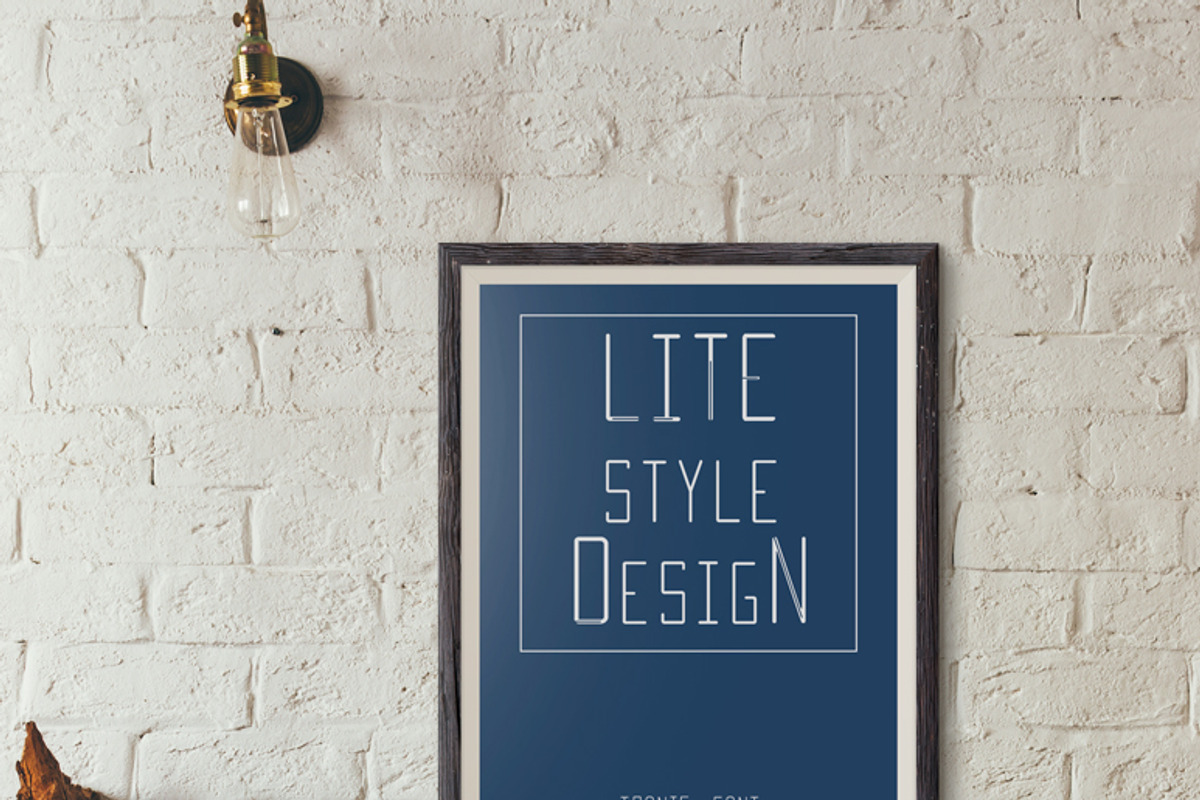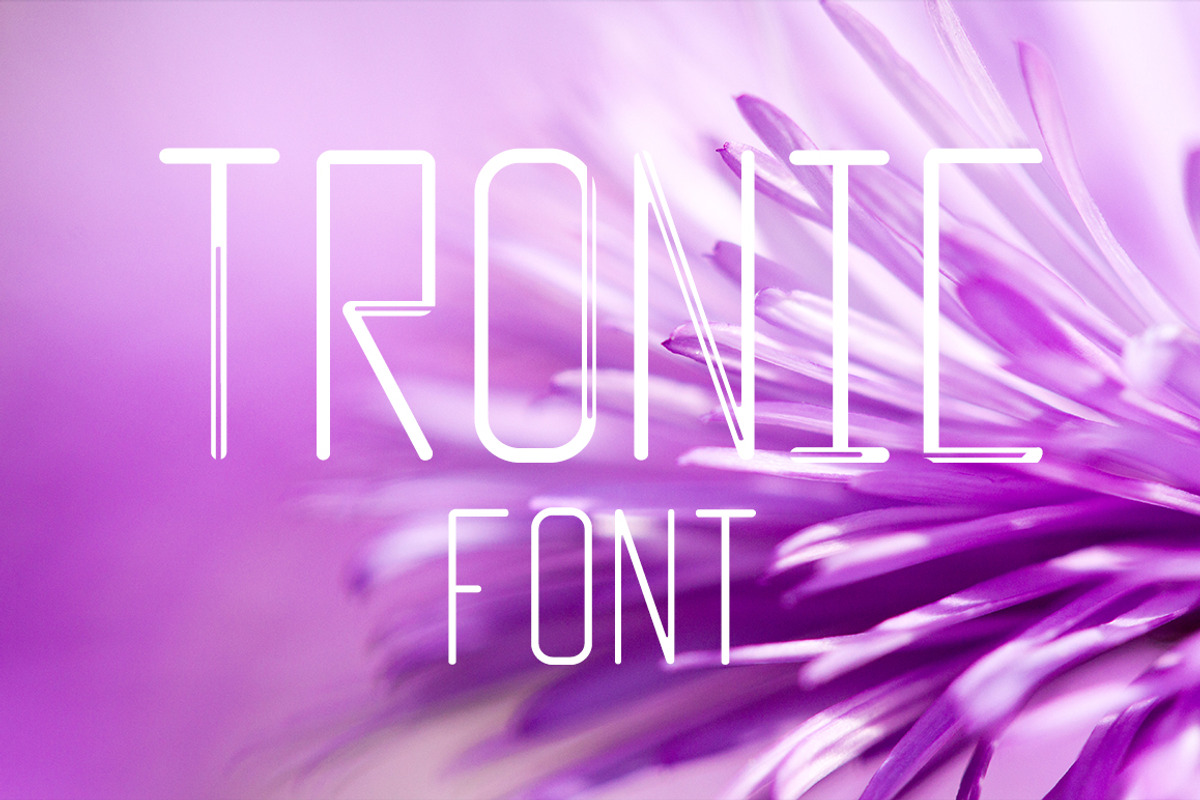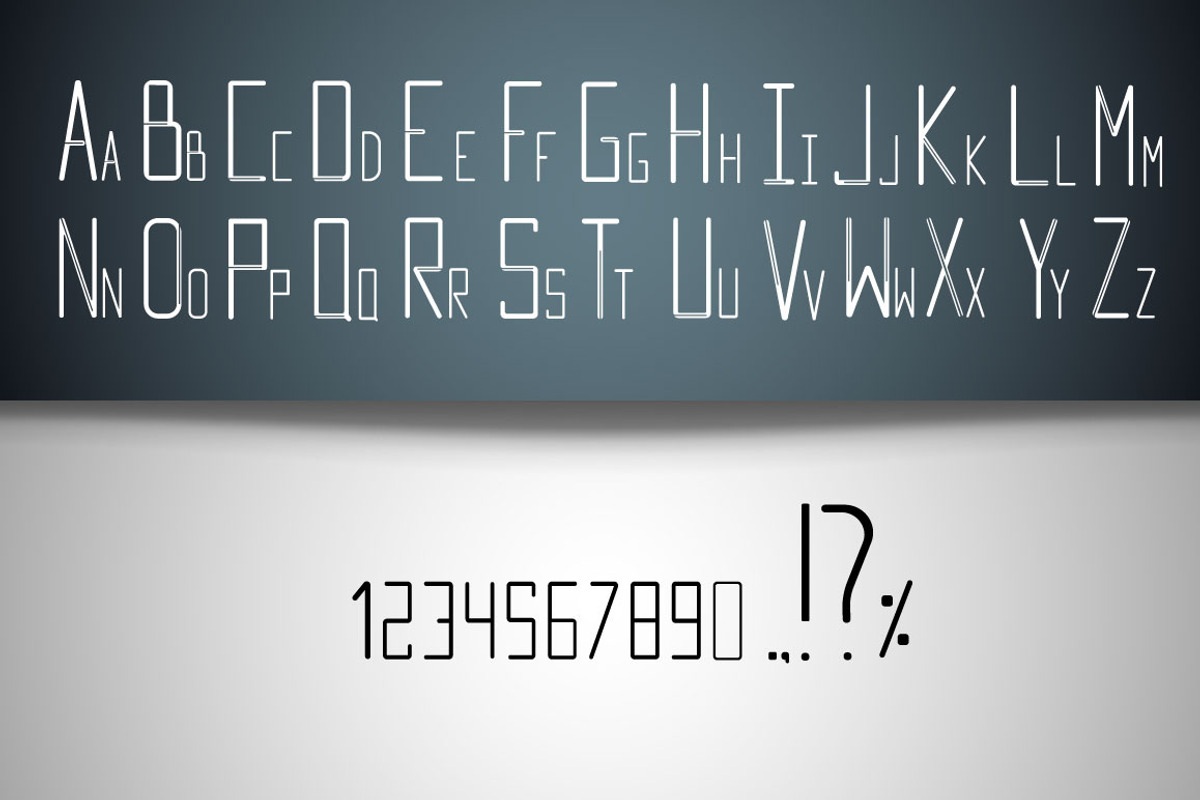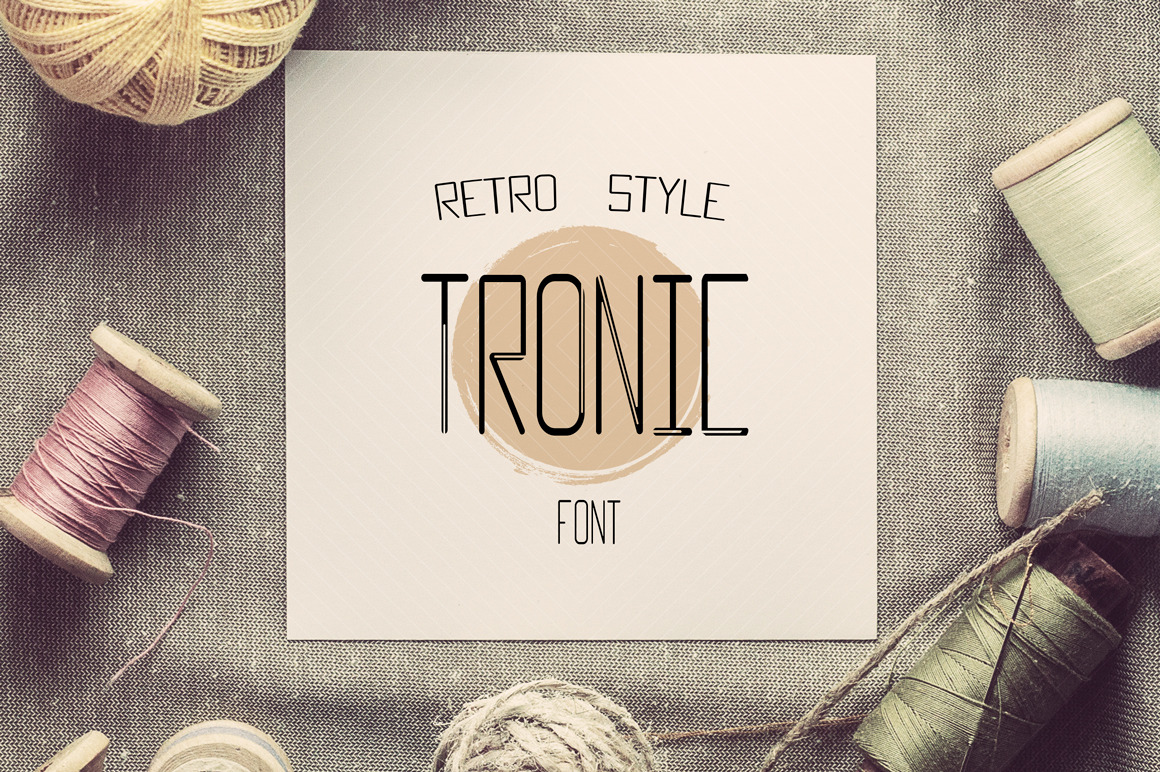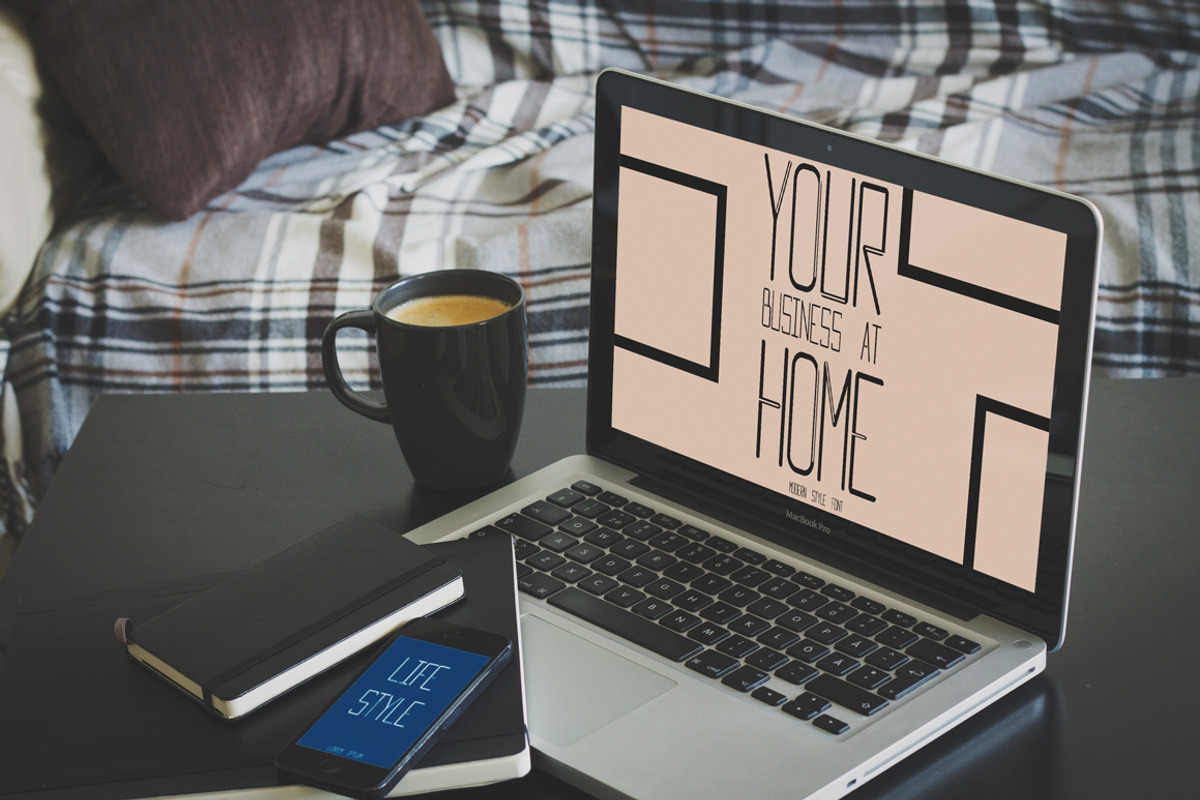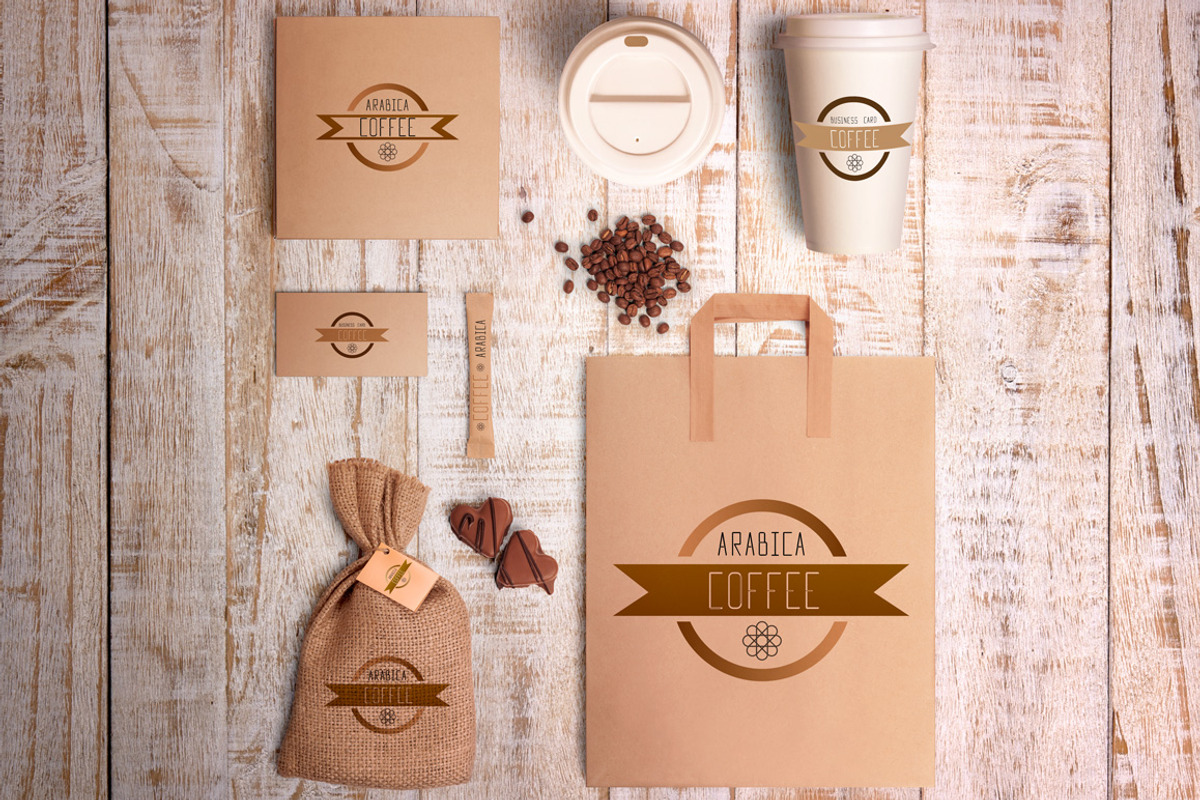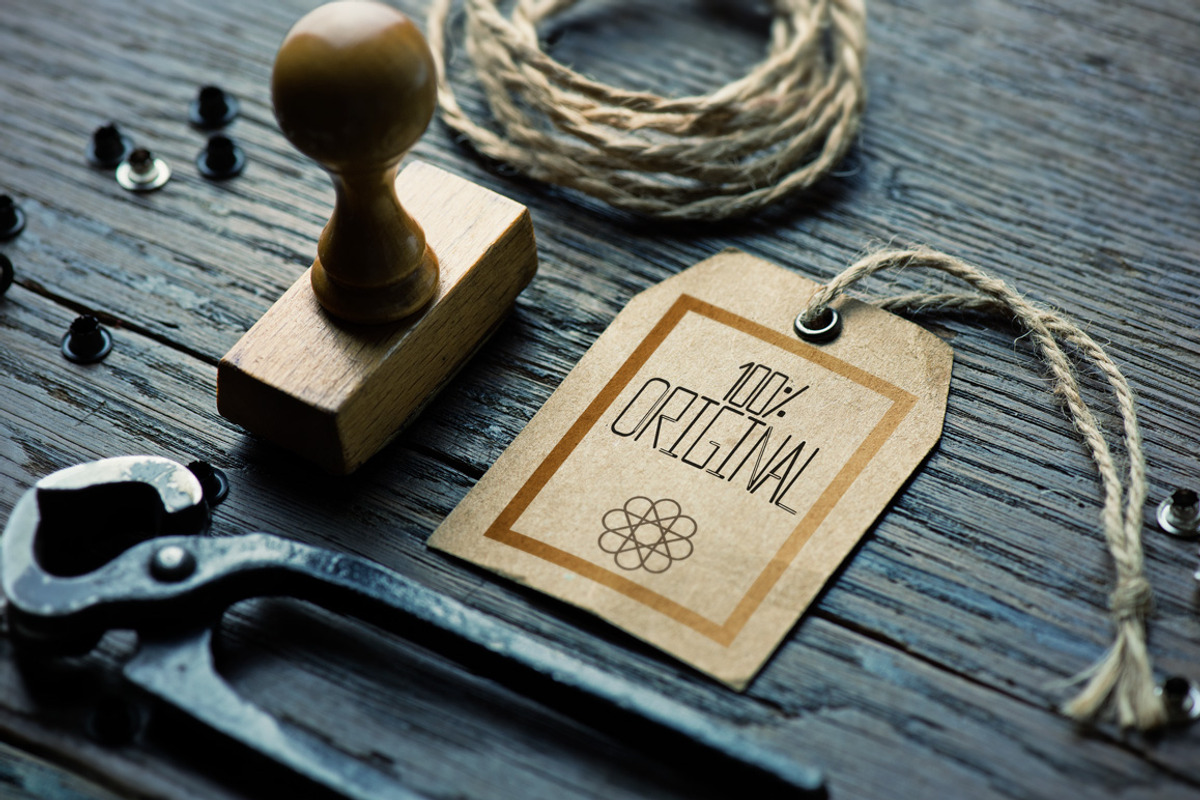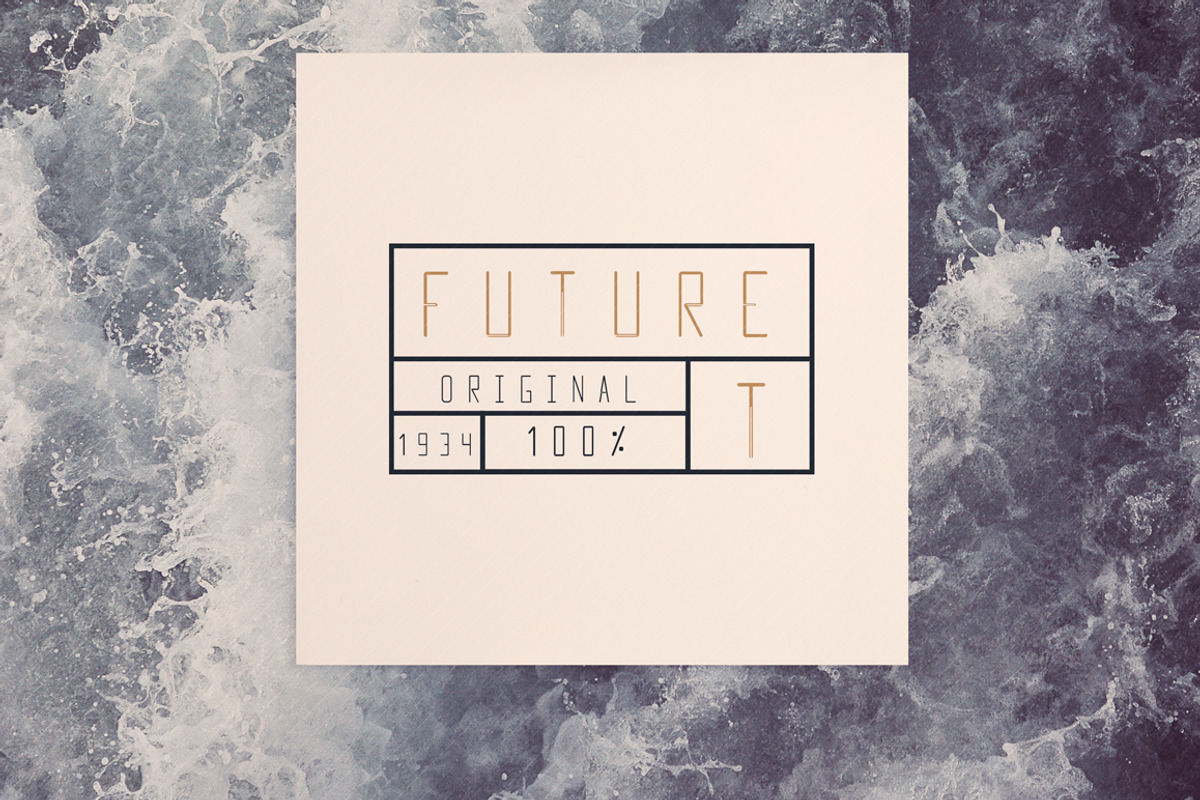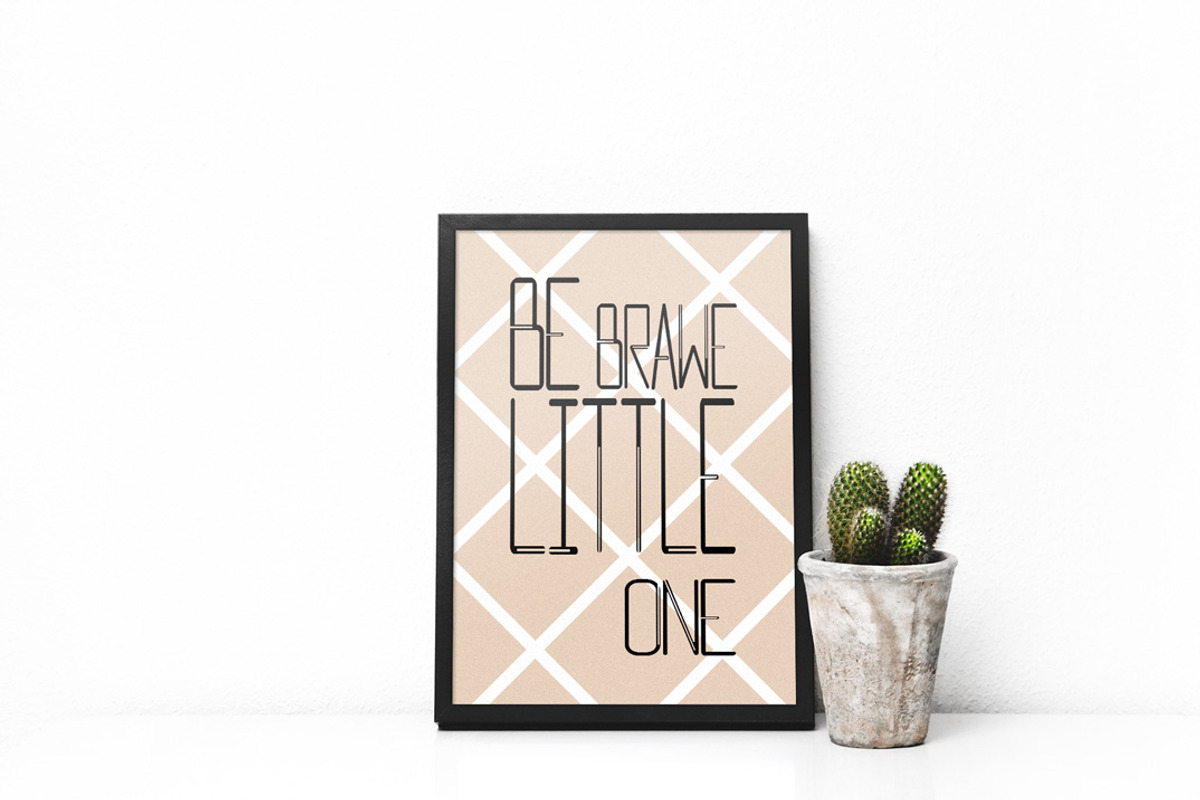
New TRONIC font
New TRONIC font abstract modern with upper and lower letters, numbers. Tronic font can be used for poster, wedding, branding, logo, fashion, apparel, letter, invitation, stationery, commercial etc.